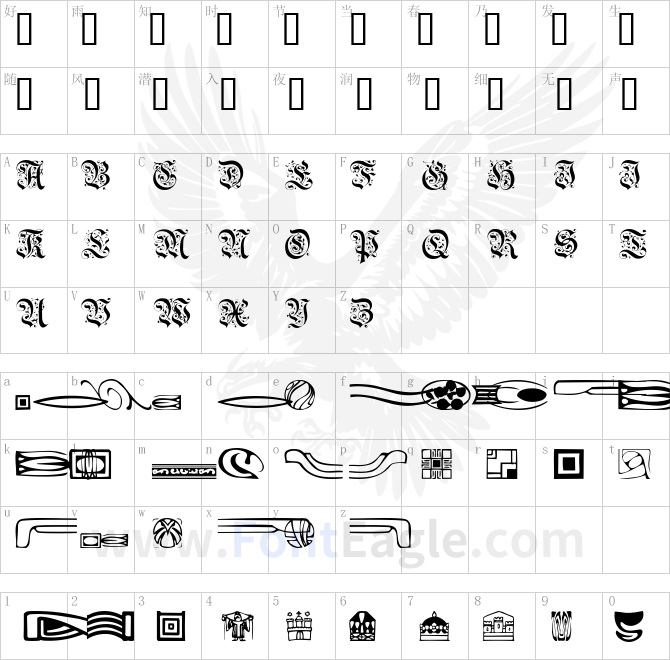
GriffinDingbats is a great font, widely used in graphic design, single-page menu design, poster design and other fields, and is deeply loved by designers.GriffinDingbats download.